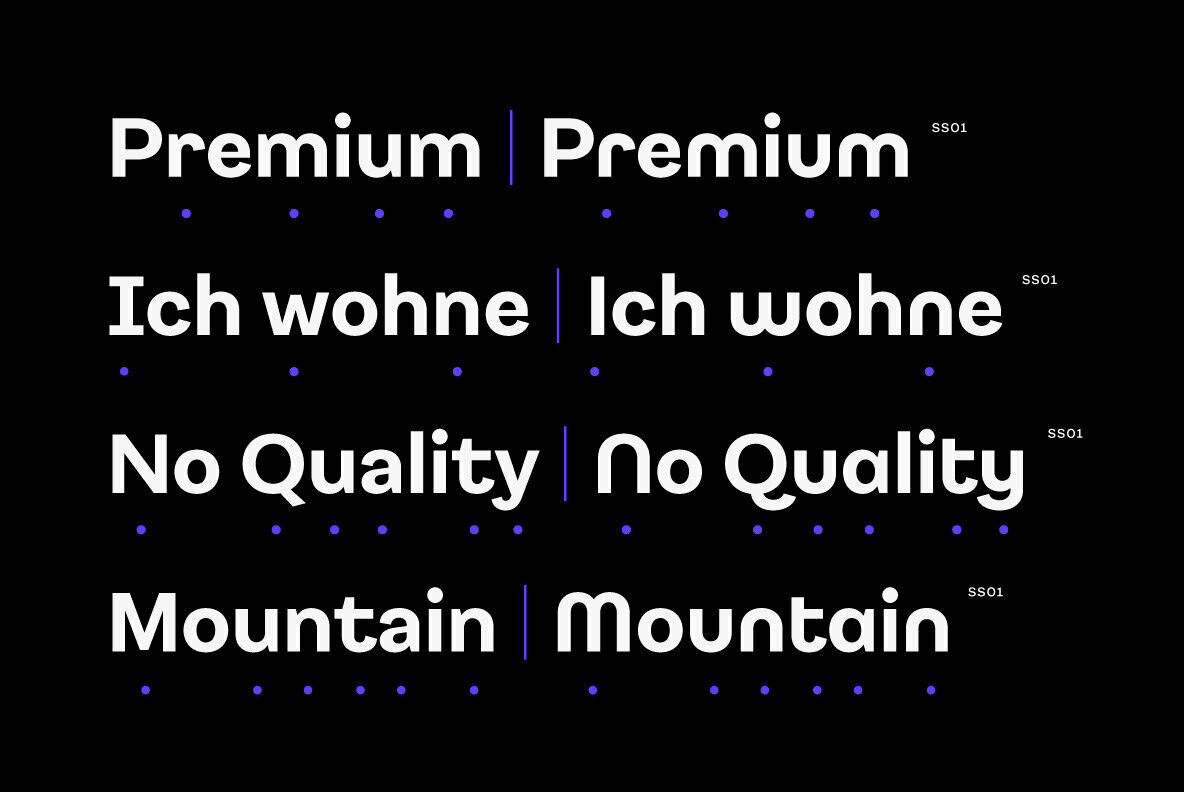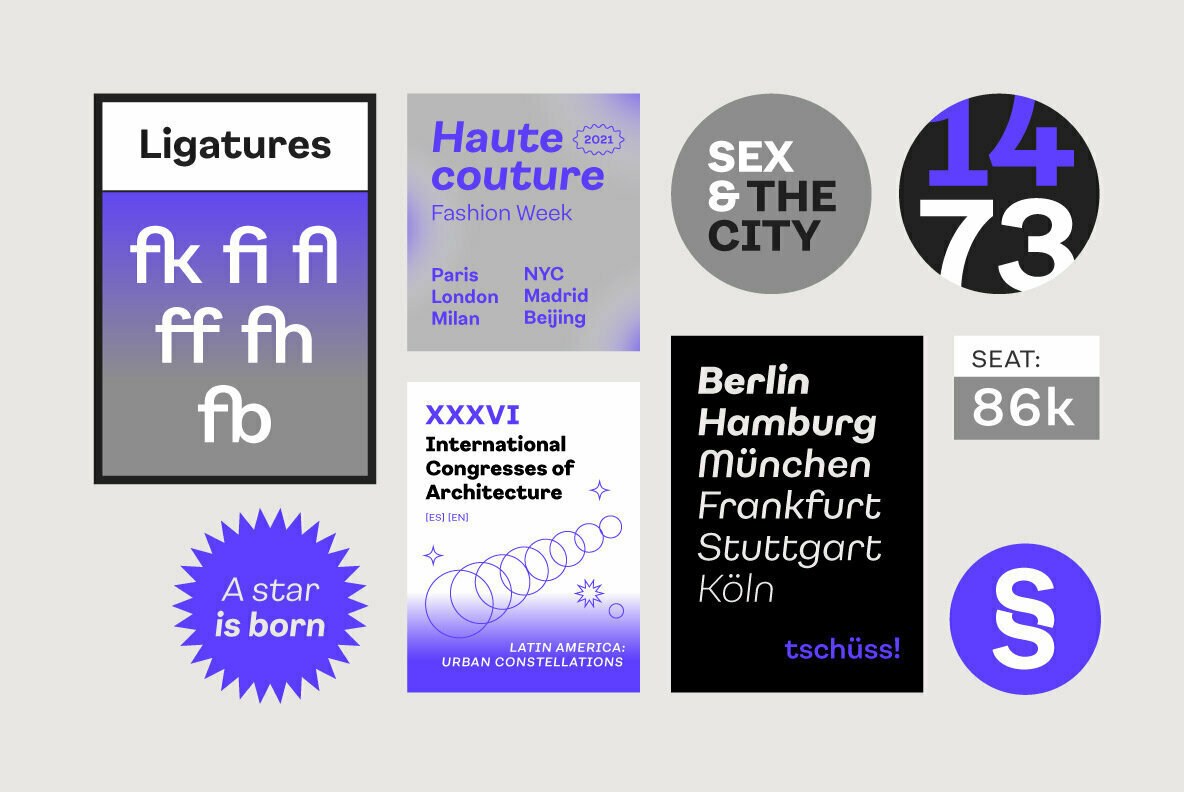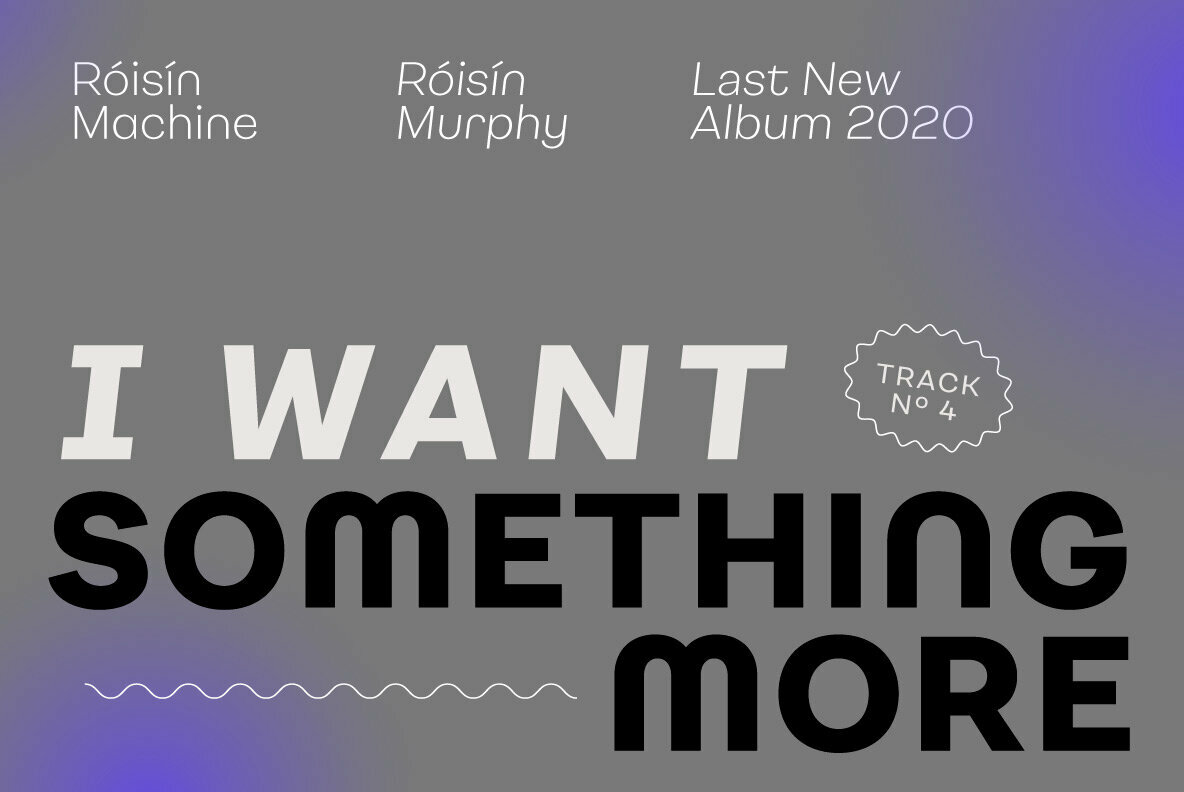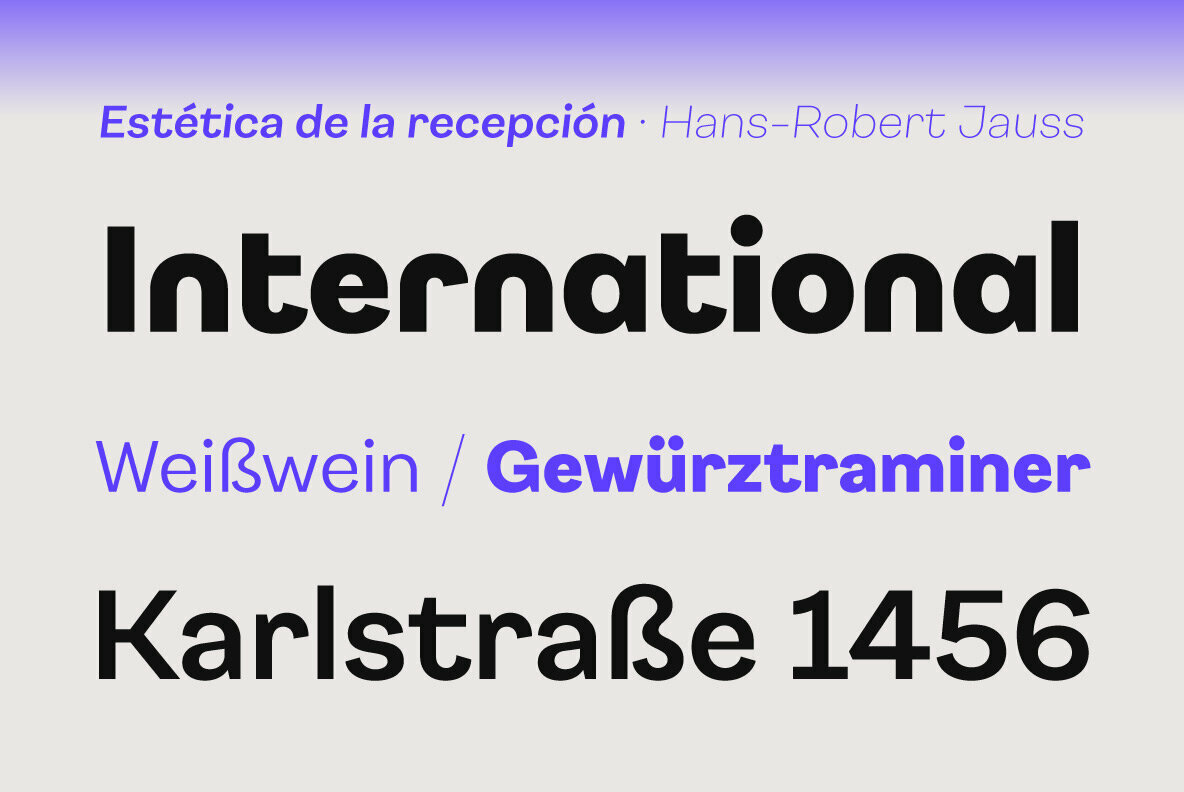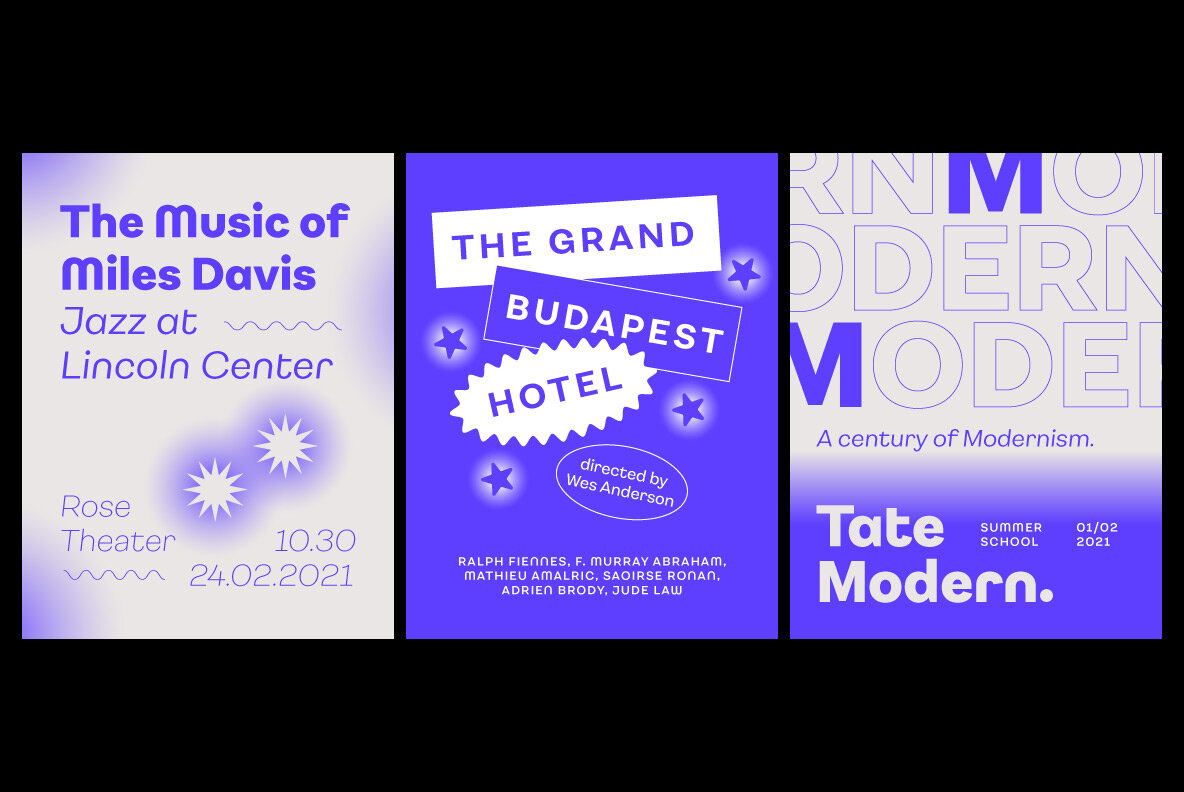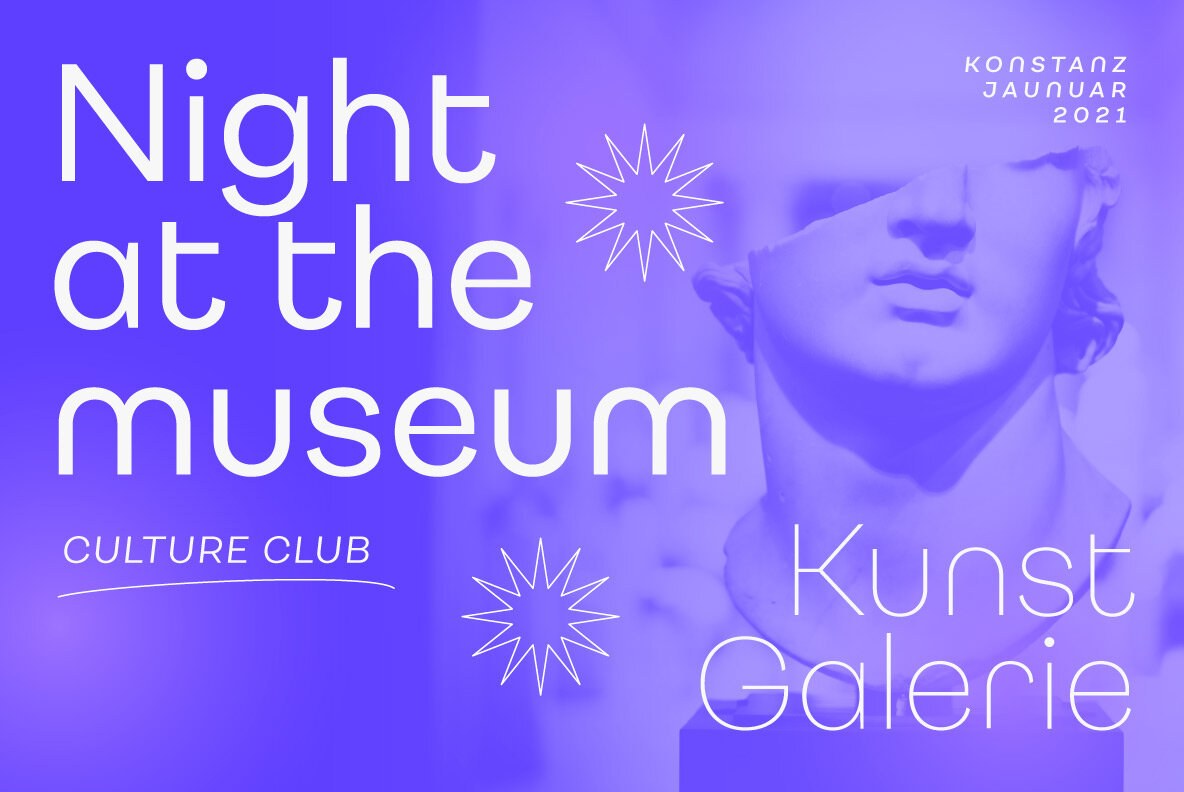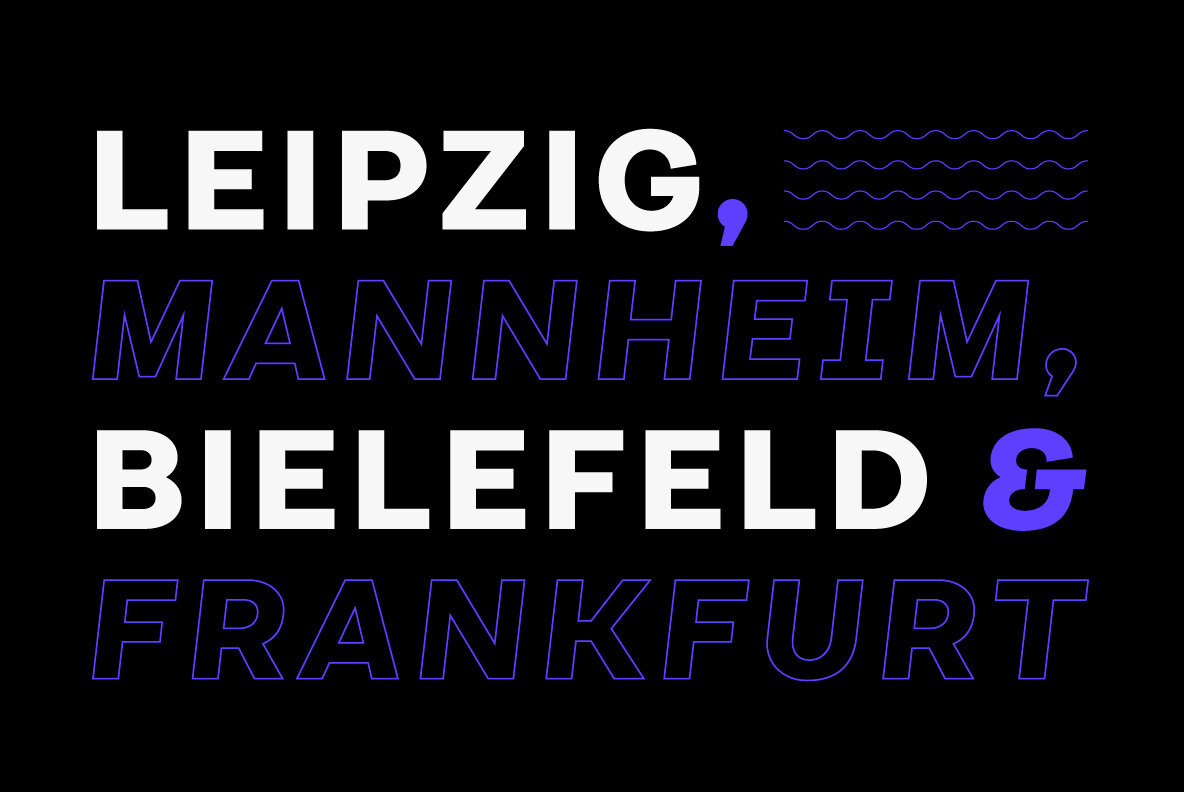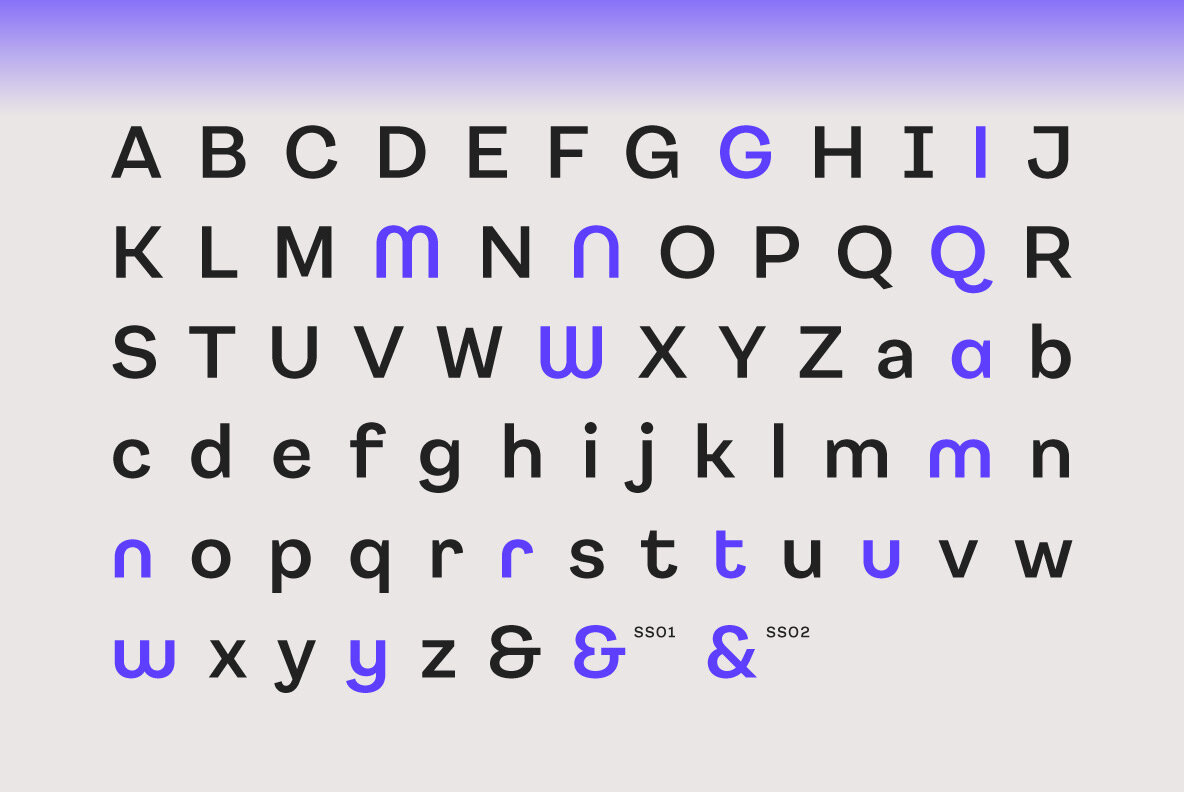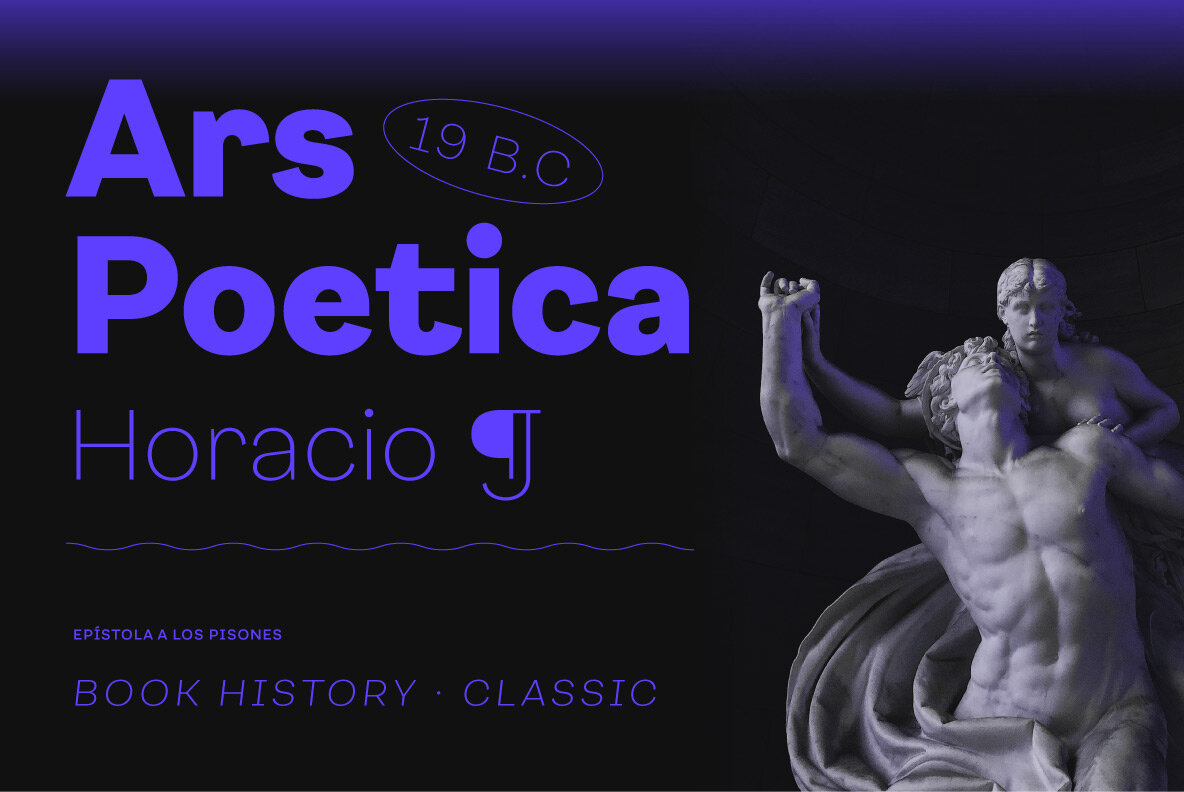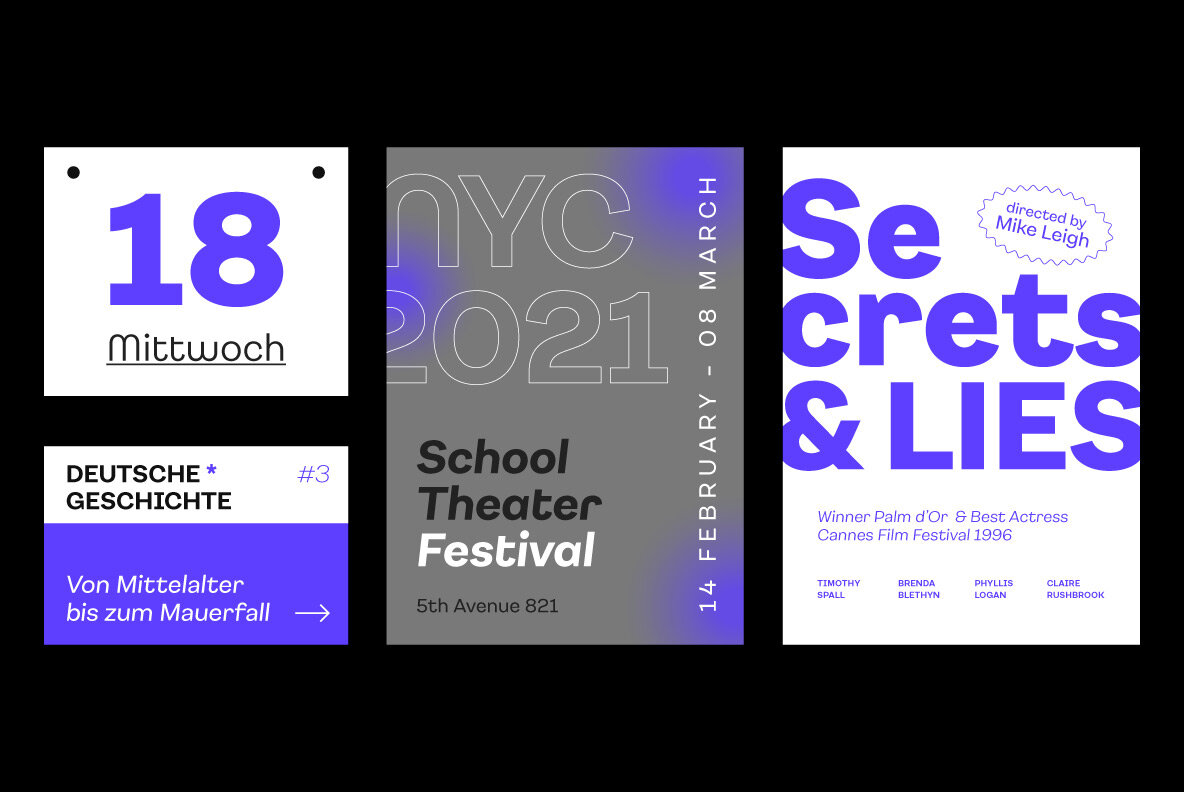
Konstanz Font
Konstanz is a sans serif font family inspired by the design of books and magazines for museums, art galleries, design biennials, architecture, and theater, among others. Its design focuses on a grotesque aesthetic but brings back certain shapes from Bauhaus and Futura. Konstanz includes 8 weights plus its matching italics, besides a stylistic set that increases its use possibilities. Konstanz ensures a graphic with a high impact and is ideal for designing editorial projects, posters, branding, and advertising.